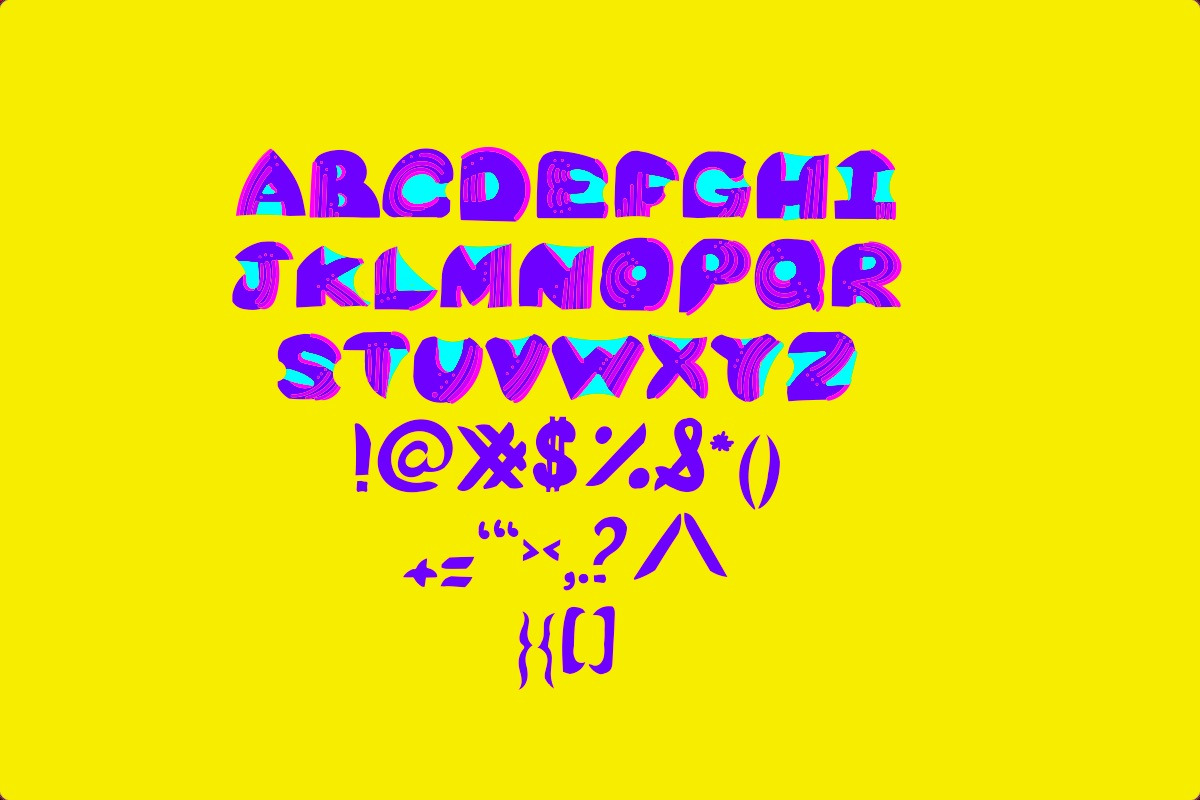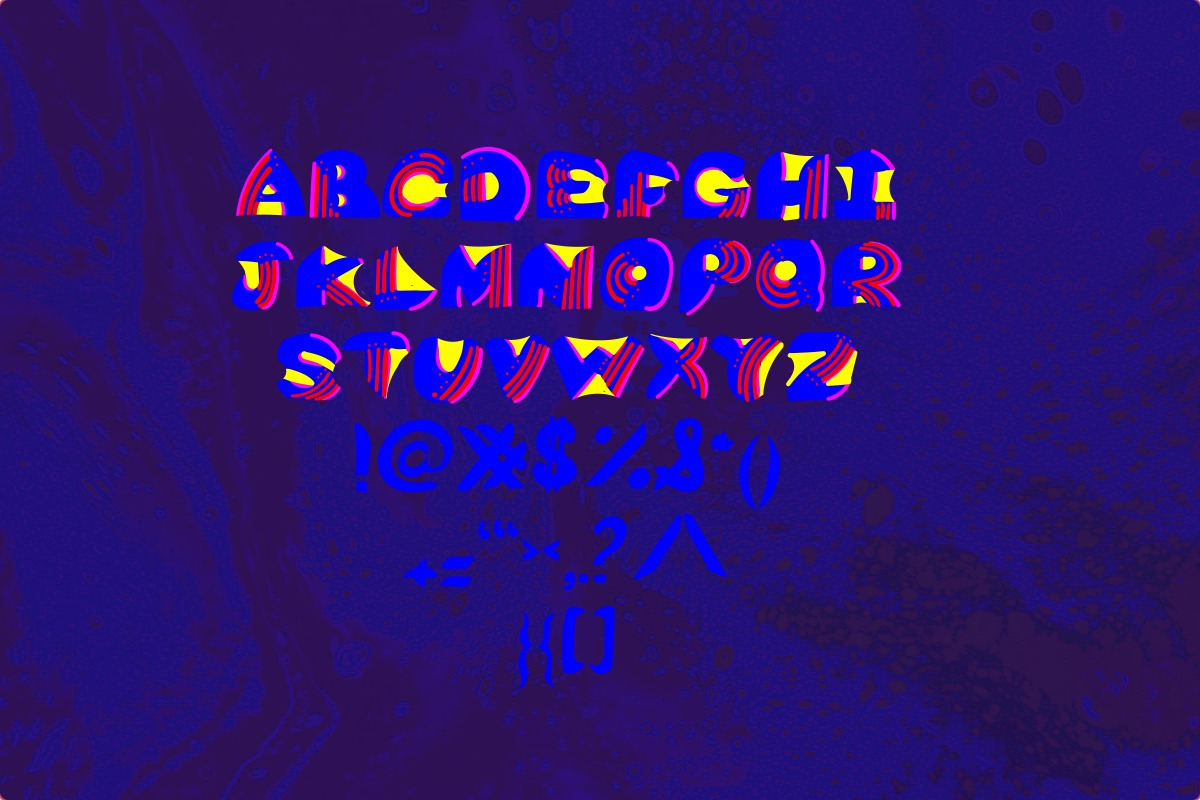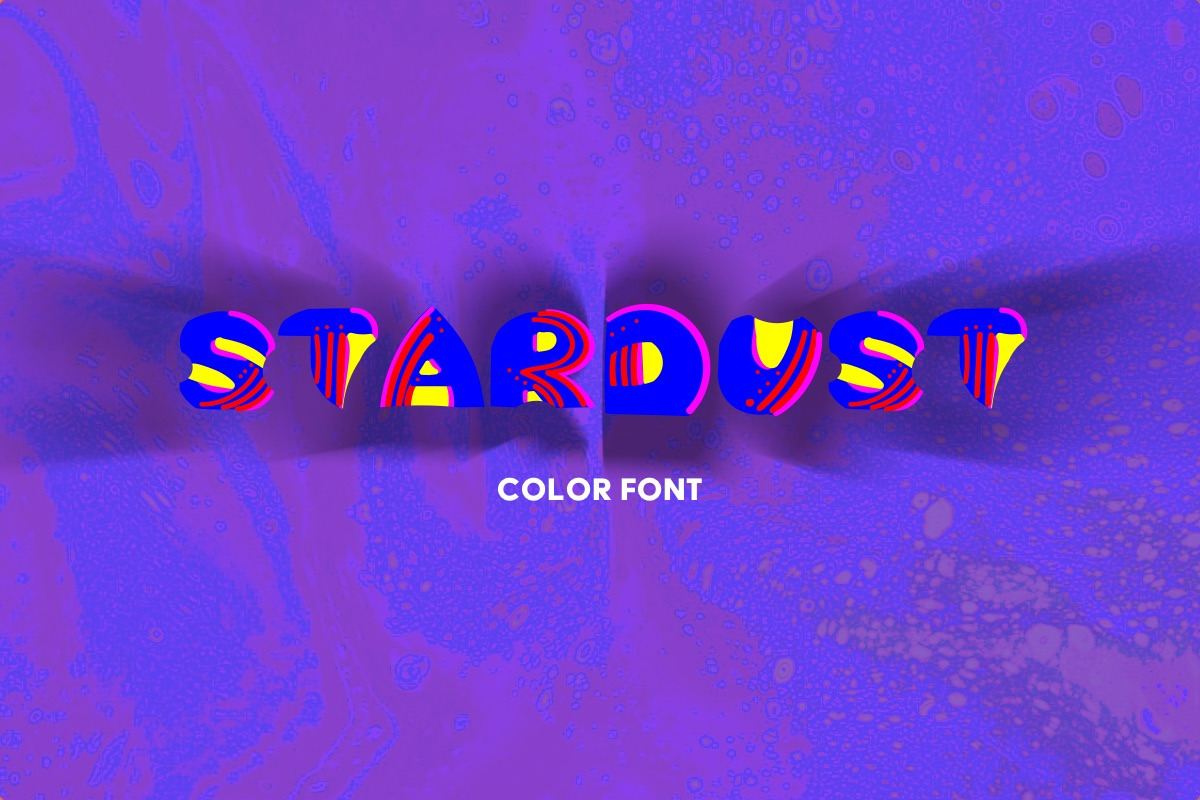
Stardust Color Font
STARDUST is a cool, bright, colorful little display typeface, hand-drawn to make the letters look like they are from outerspace. This font is also an SVG color vector font.
The new OpenType-SVG font format allows for colors, so the colors you see are built into the font unless changed to pixes and manipulated.
Its bold chunky outlines are somewhat playful, giving it a charming and easygoing character. The detail in each of the letters makes it look especially great at large point sizes.
Stardust is perfect for birthday cards, headlines, posters, social posts and would also be amazeballs for packaging concepts.
They are the next big thing in typography, they bring rich color to type, embedding them inside the typeface—no more black and white.